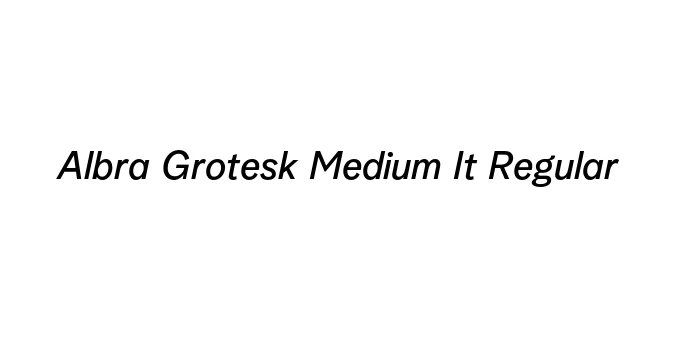
Albra Grotesk Medium It Regular
Designed by Valerio Dell’Edera
Albra Grotesk Medium Italic is a sophisticated sans-serif typeface designed by Valerio Dell’Edera. It represents a modern, functional evolution within the Albra type family, bridging the gap between high-fashion elegance and everyday utility. The font is characterized by its balanced proportions and clean, geometric construction, which ensures excellent readability across various digital and print mediums.
This Medium Italic variant provides a graceful slant that adds dynamic energy to layouts without sacrificing the typeface's structural clarity. It is particularly well-suited for editorial layouts, corporate identities, and sophisticated user interfaces where a blend of contemporary style and professional authority is required.
Albra Grotesk Medium It Regular Best Uses
Excellent for body copy and headings in high-end magazines and digital publications.
Ideal for creating professional and modern brand identities and logos.
Provides high legibility for navigation menus and user interface elements.
Perfect for clean, minimalist advertising campaigns in print and digital media.